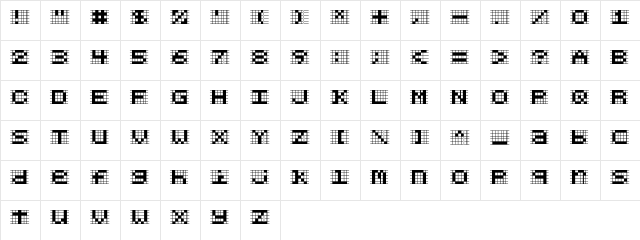
Chlorenuf Regular
Design Context for Chlorenuf
Chlorenuf is a composed and adaptable typeface that performs quietly and consistently across a wide range of design contexts.